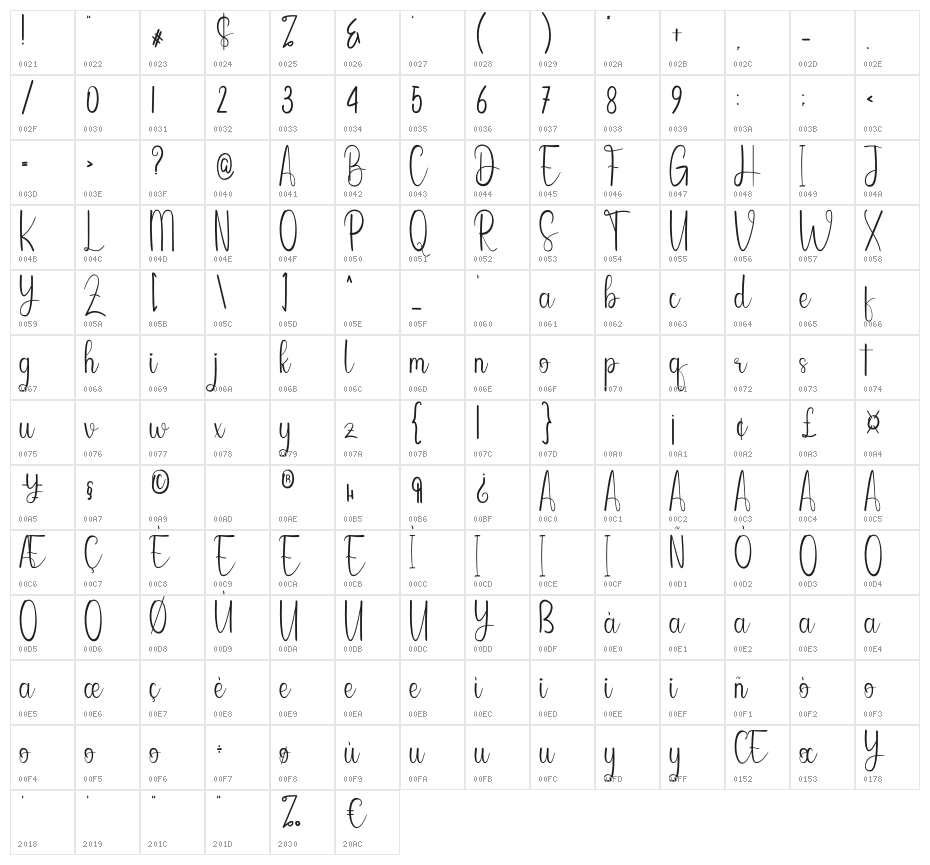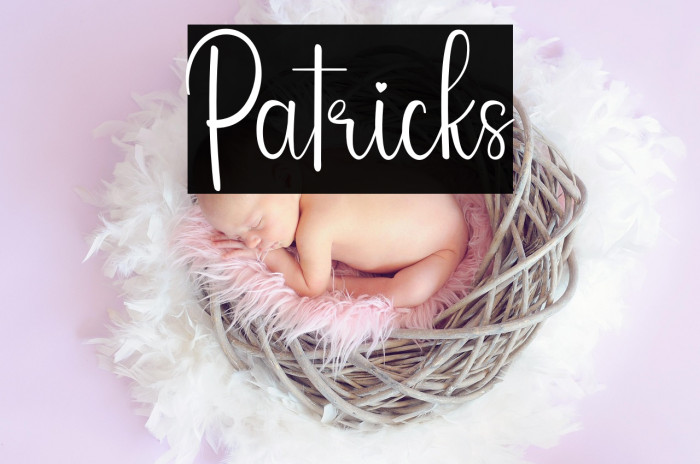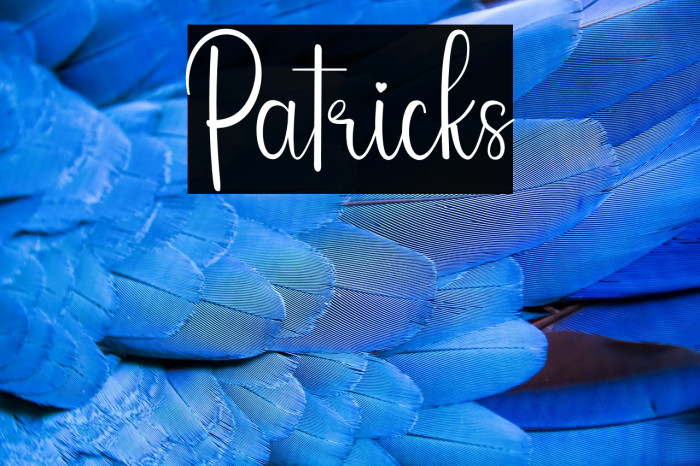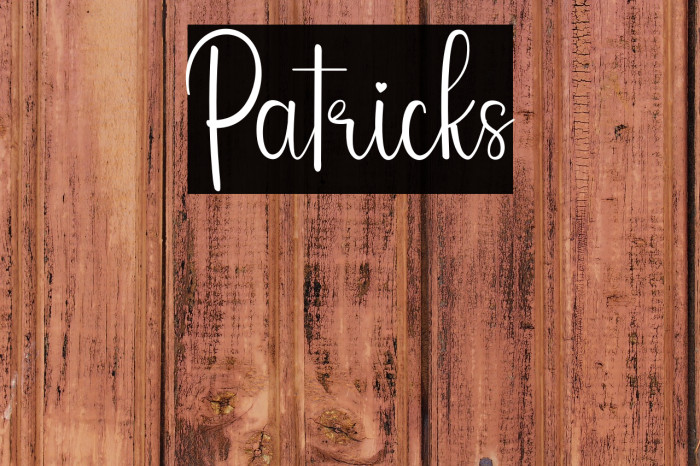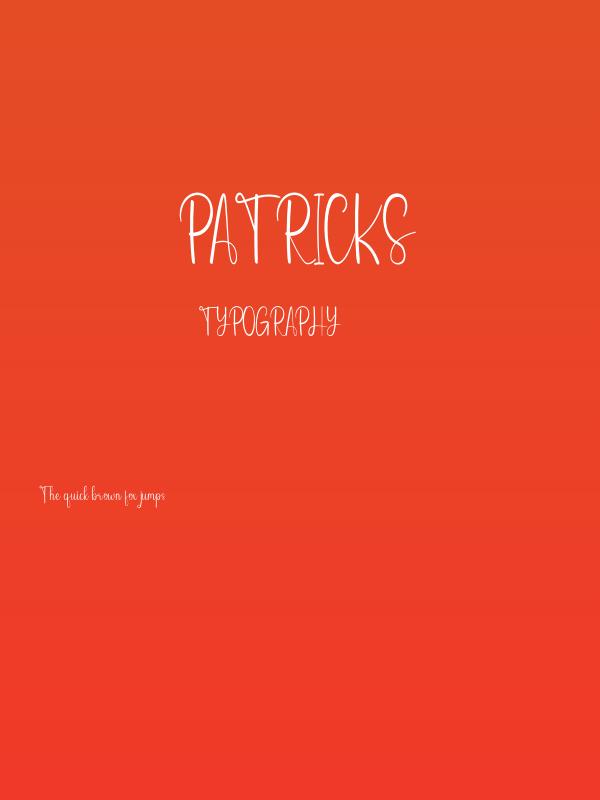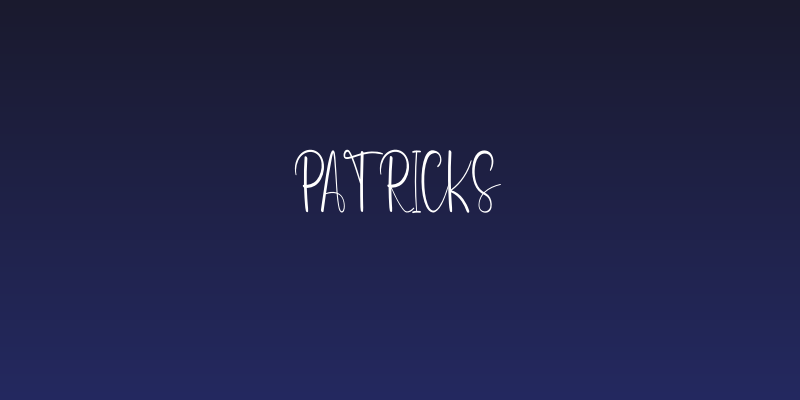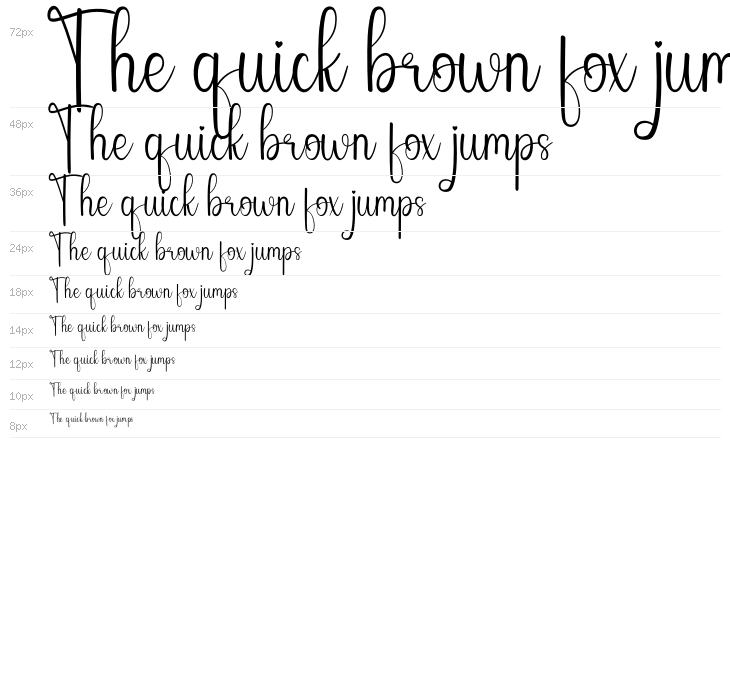
Patricks Font
A playful and whimsical handwritten font with tall, narrow characters and a casual, flowing style.
| Width | Condensed |
| Overall Style | Casual, Whimsical |
| Use Case | Headlines, Invitations, Greeting cards |
| Proposed Projects | Greeting cards, invitations, playful branding. |